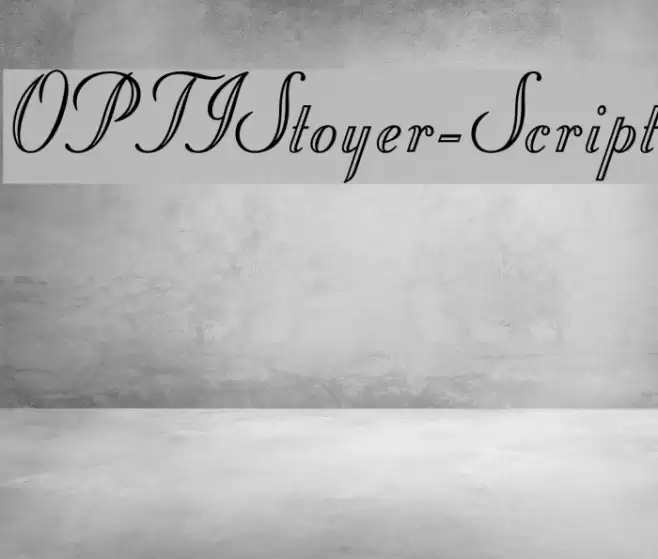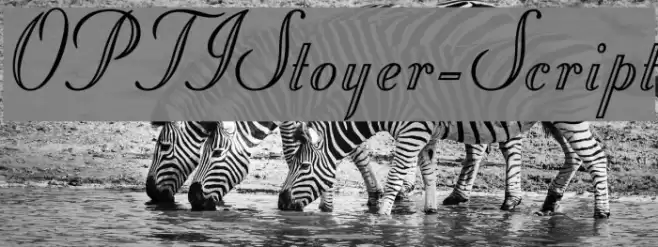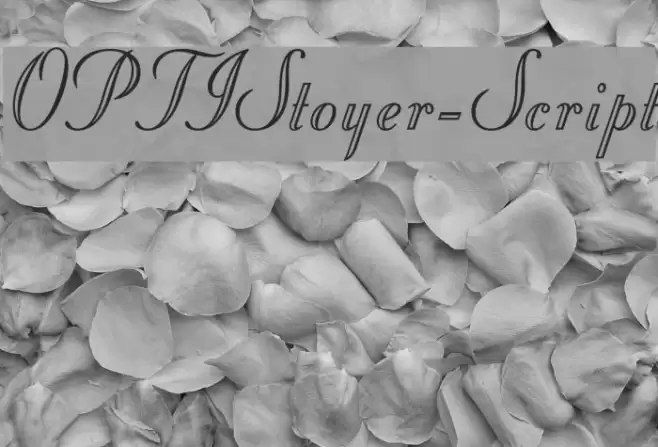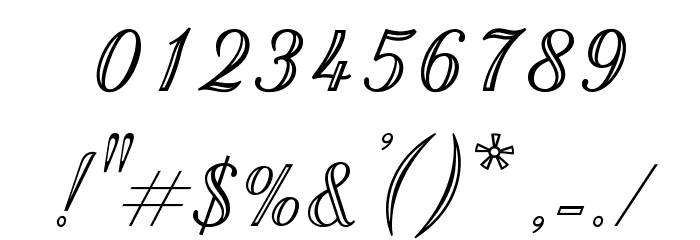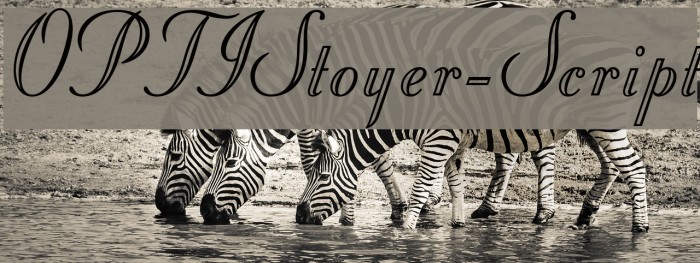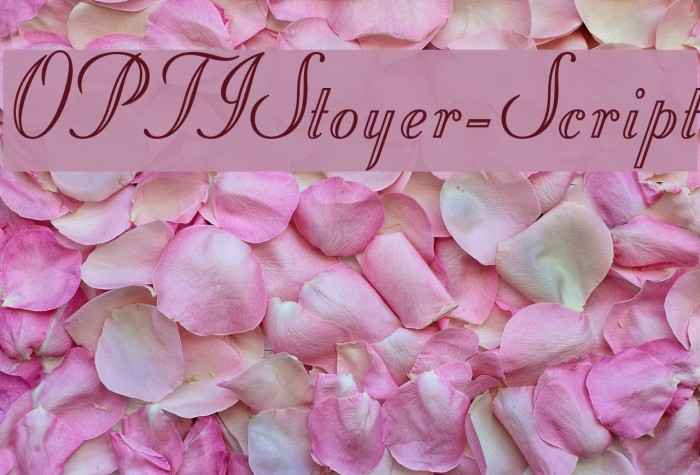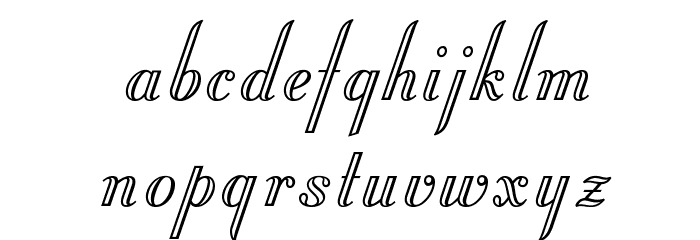
OPTIStoyer-Script Font
OPTIStoyer-Script Description
This elegant script font features a flowing, cursive style with a refined and sophisticated appearance. The uppercase letters are characterized by their graceful loops and swashes, giving them a sense of movement and fluidity. The lowercase letters maintain a consistent style, with elongated ascenders and descenders that enhance the font's decorative nature. The numerals are distinct and maintain the script's overall aesthetic, while the special characters blend seamlessly with the rest of the set. The font's thin strokes and moderate contrast make it suitable for formal and decorative applications, adding a touch of elegance to any design.
An elegant script font with graceful loops and swashes, perfect for decorative use from Uncategorized fonts.
- Proposed Projects: Ideal for wedding invitations, elegant branding, high-end product packaging, and decorative signage.
- Use Case: Logos, Invitations, Decorative text